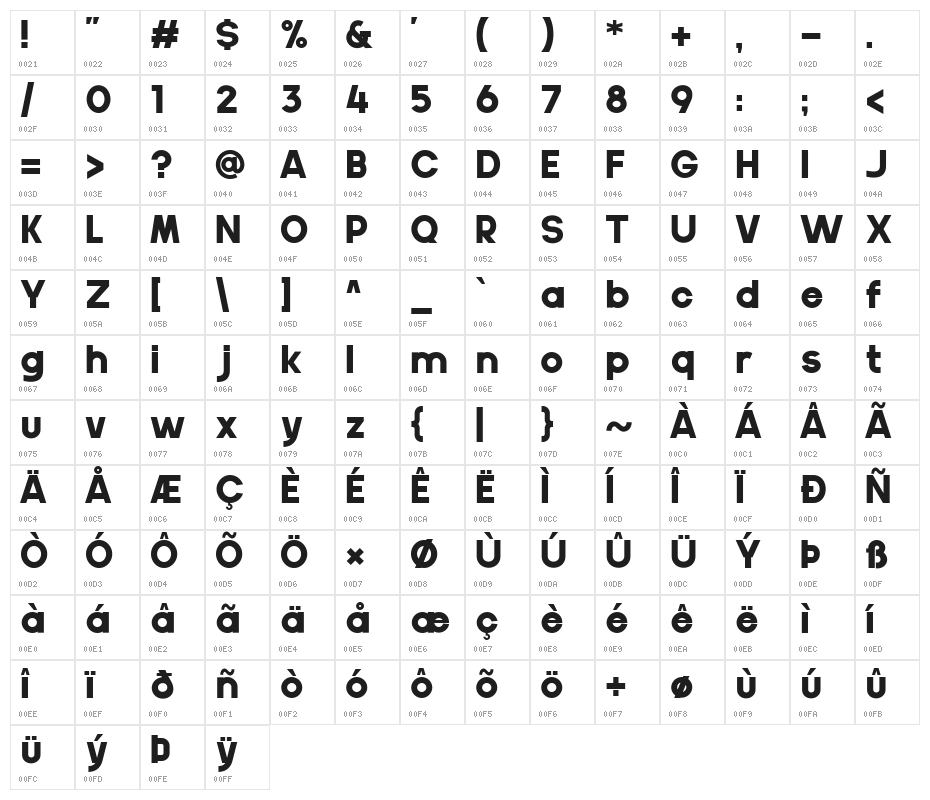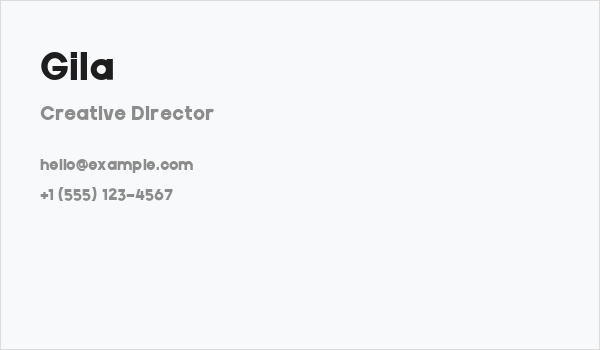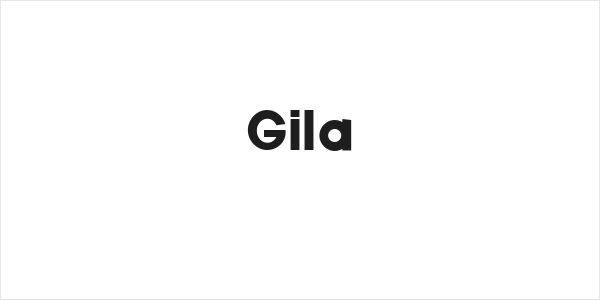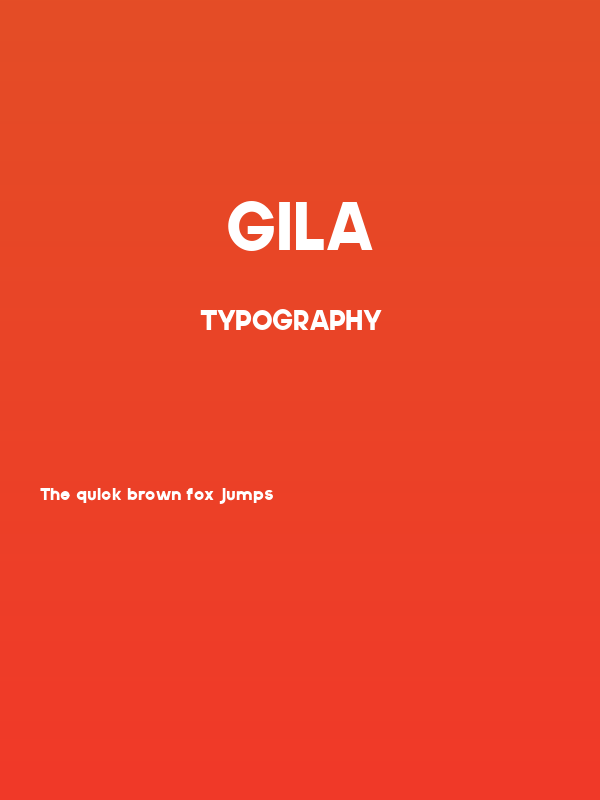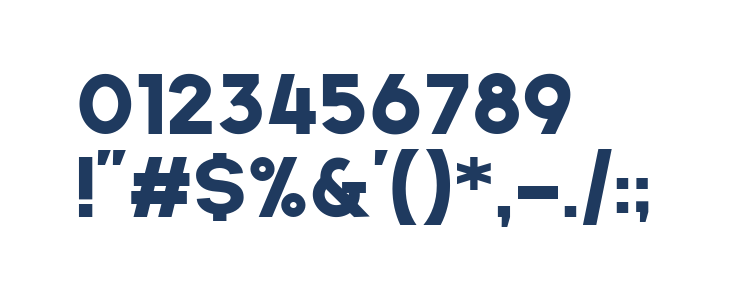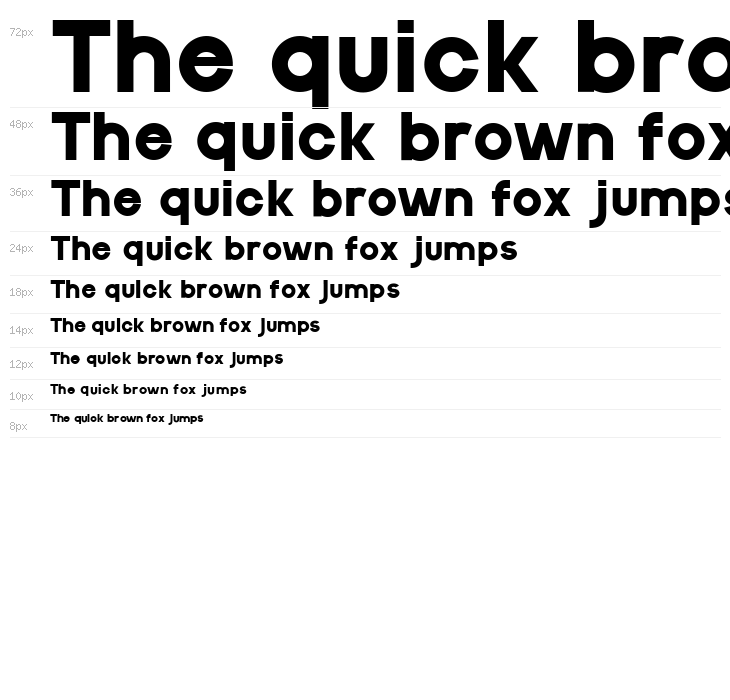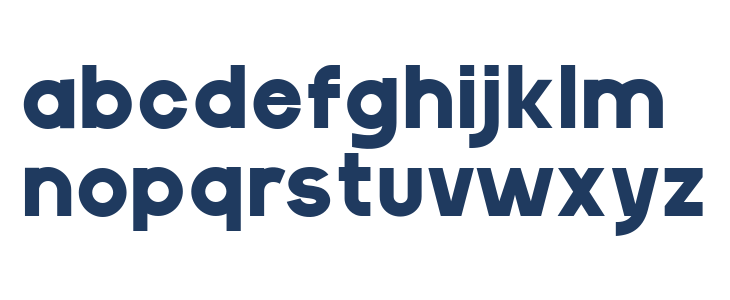
Gila Font
Gila Description
This font exhibits a bold and modern style with clean, geometric lines. The characters are evenly weighted, providing a strong visual impact. The uppercase and lowercase letters maintain a consistent height, contributing to a uniform appearance. The numerals are clear and legible, matching the boldness of the alphabet. Special characters are well-defined, enhancing the font's versatility. The overall design is sleek and contemporary, making it suitable for a variety of applications.
GILA1 UPPERCASE
GILA1 LOWERCASE
GILA1 OTHER CHARS